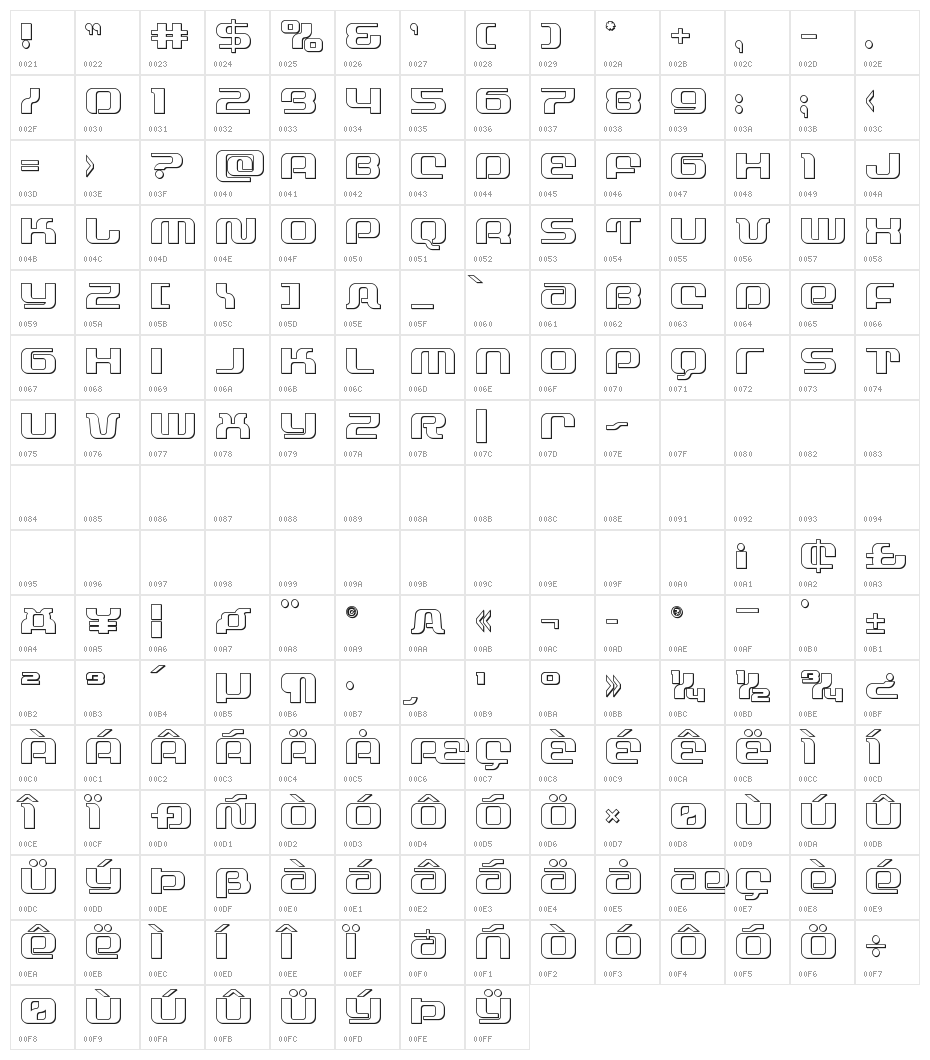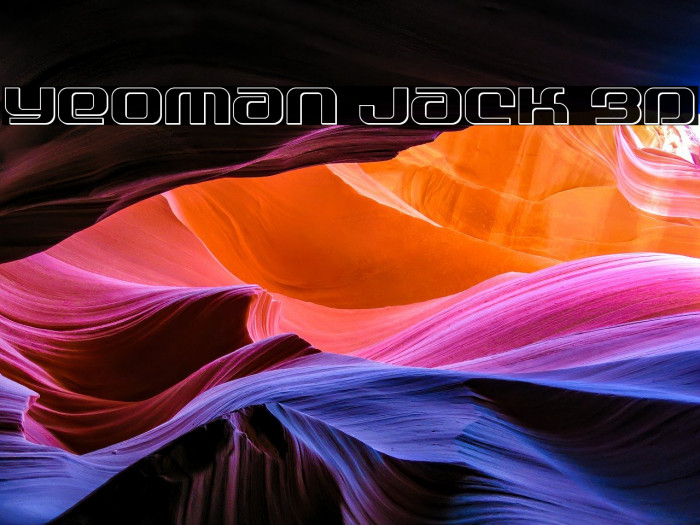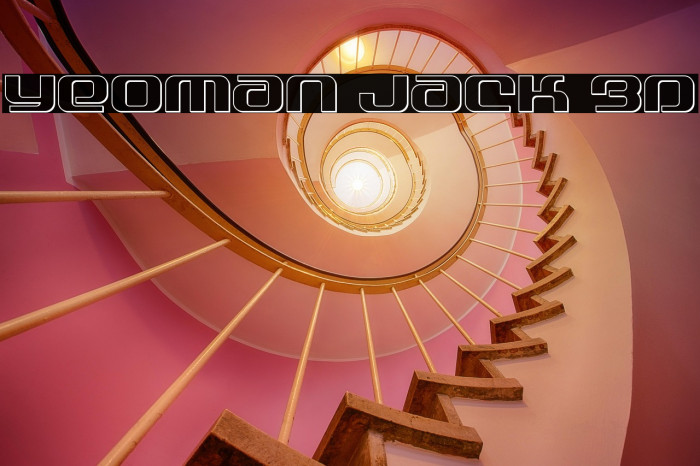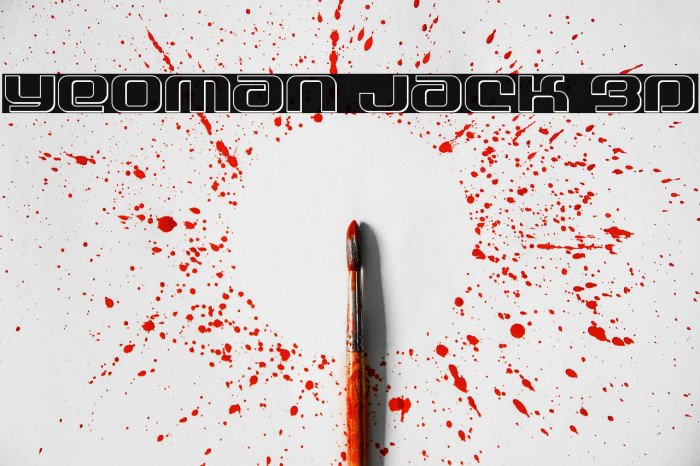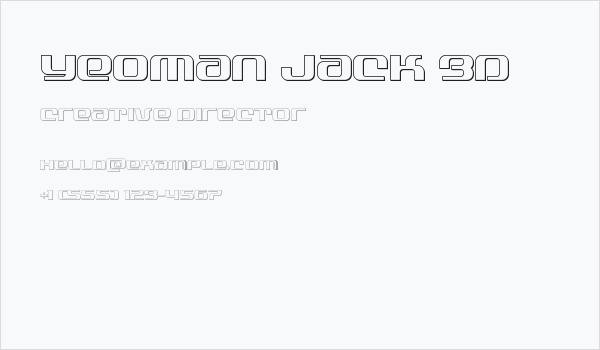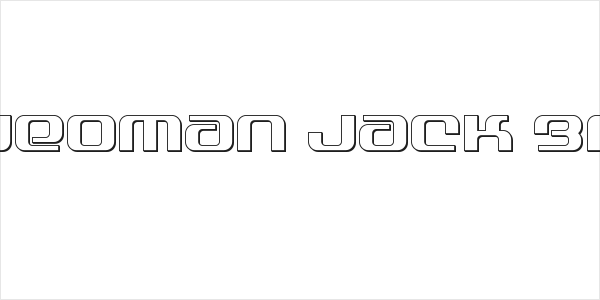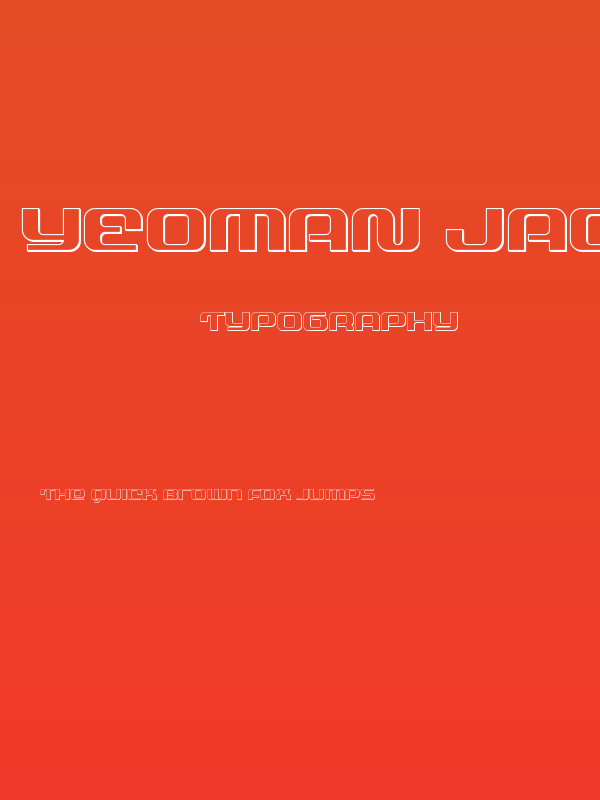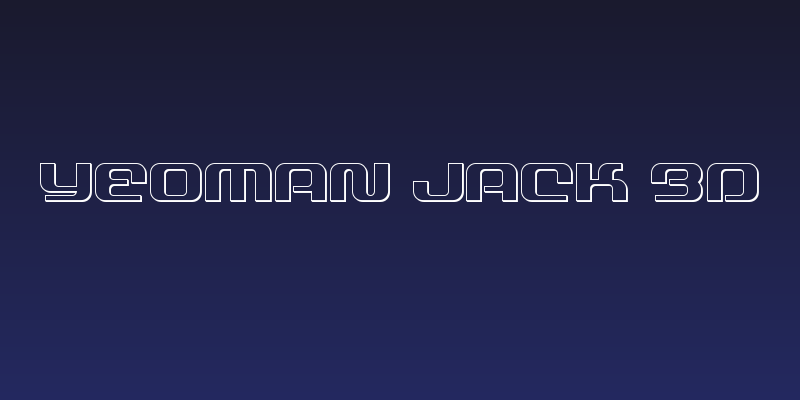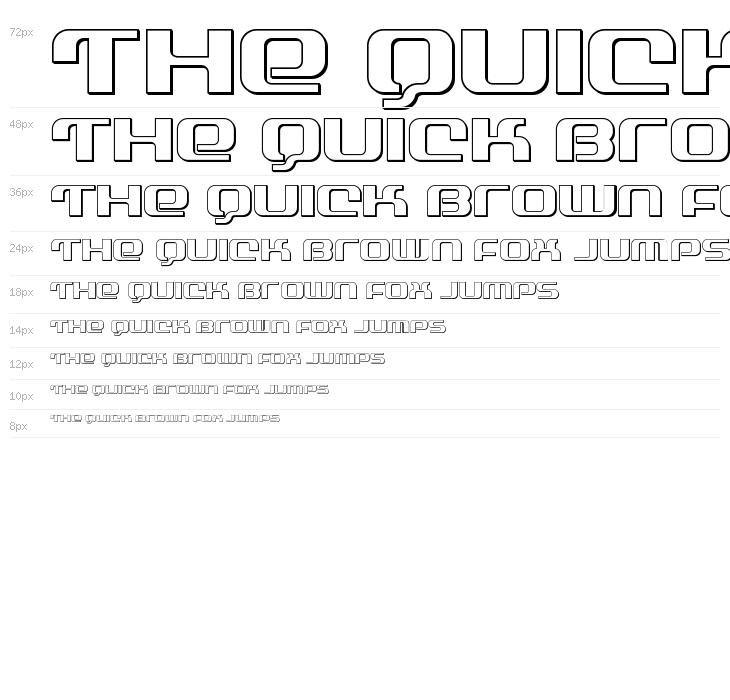
Yeoman Jack 3D Font
Yeoman Jack 3D Description
This font features a bold, three-dimensional outline style that gives it a futuristic and industrial appearance. The characters are constructed with a consistent line thickness, creating a uniform and cohesive look. The geometric shapes and sharp angles contribute to its modern aesthetic, making it stand out as a display font. The uppercase and lowercase letters maintain a similar structure, with the lowercase being slightly smaller in size. Numbers and special characters are designed to match the overall style, ensuring versatility across different uses. The font's unique design makes it ideal for projects that require a strong visual impact.